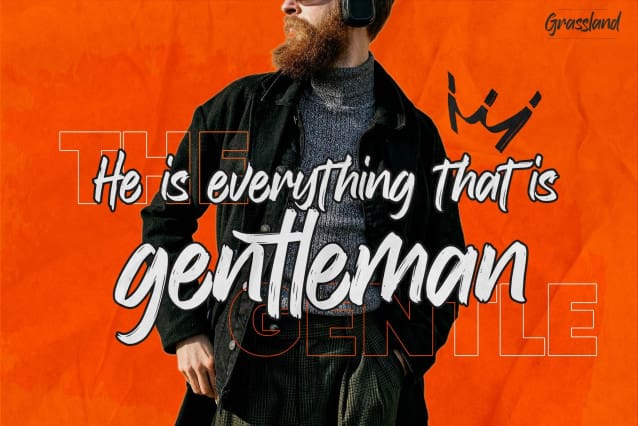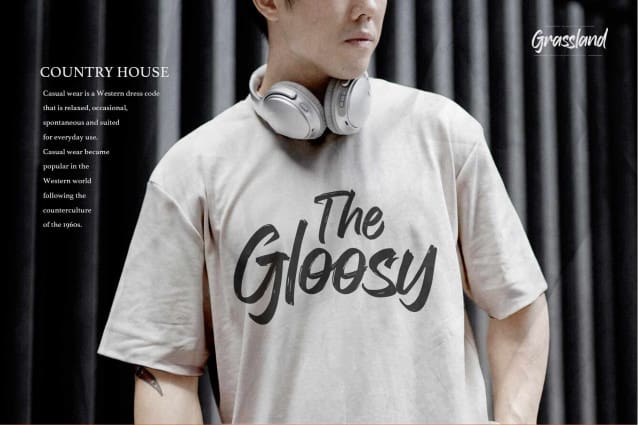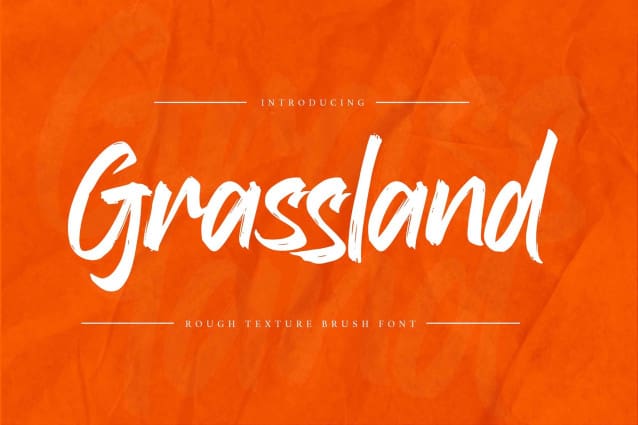
Grassland Brush Font
Grassland Brush Font – This is a Rough Texture Brush Font, this is a brush font with more alternates and rough style, this font is perfect for making a strong statement in your designs.